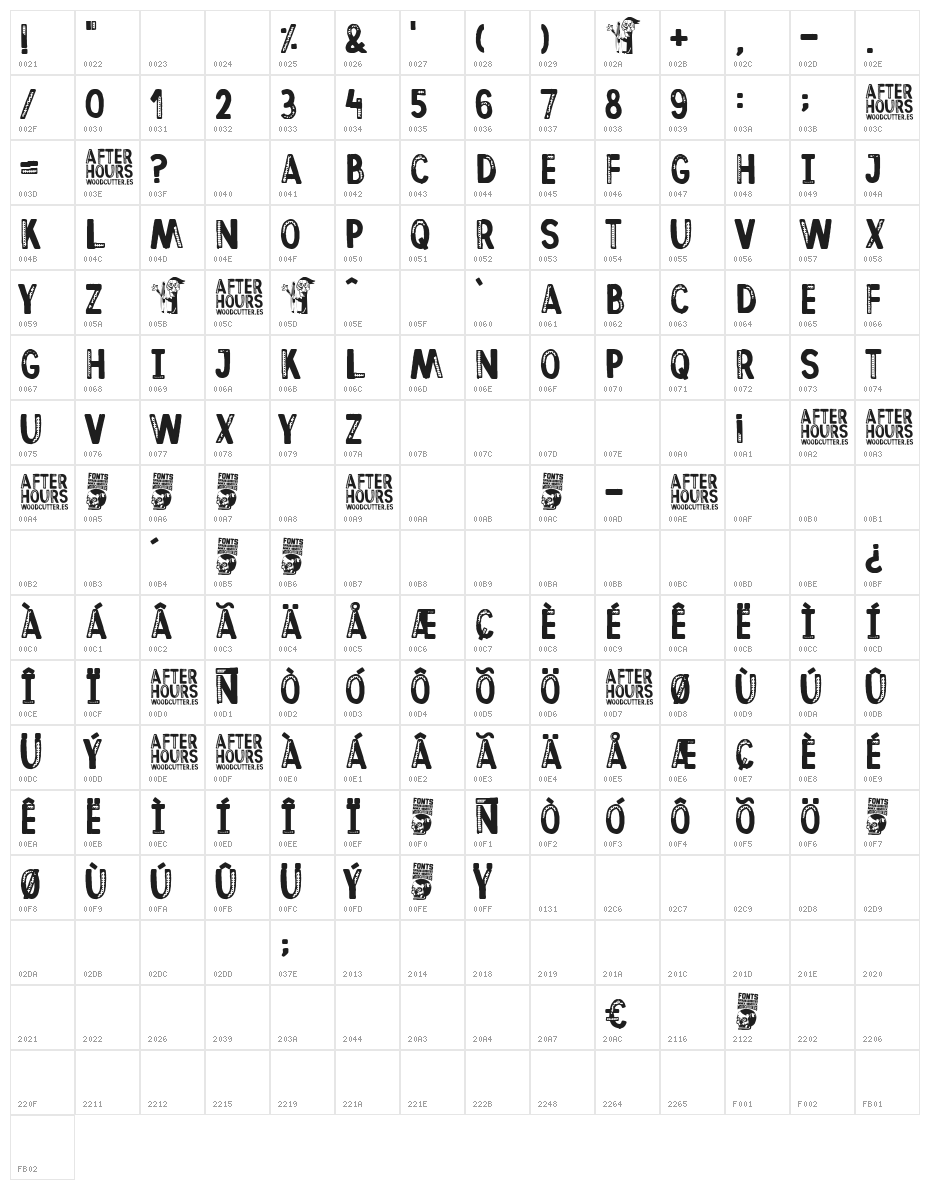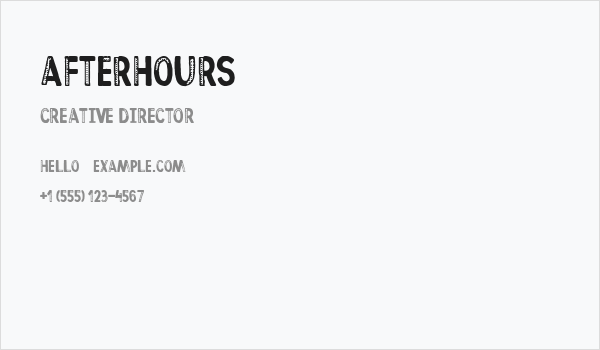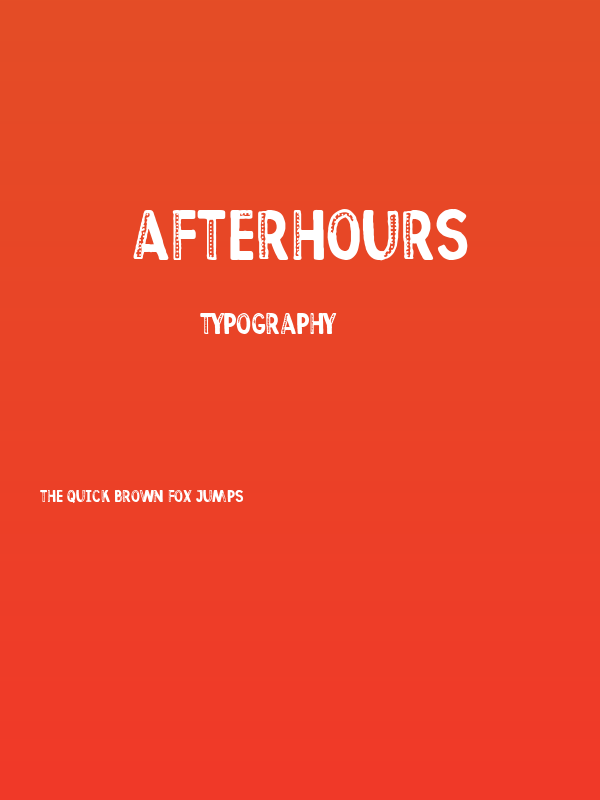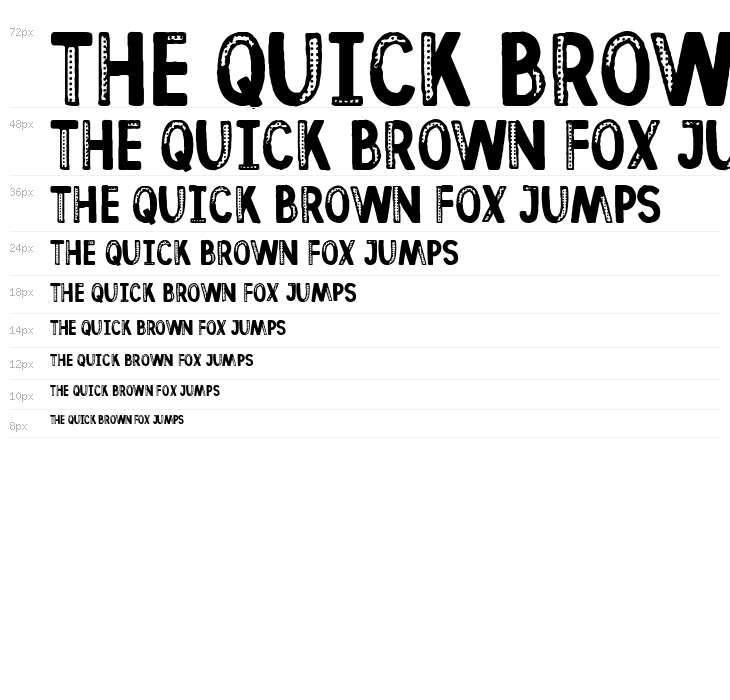
Afterhours Font
Afterhours Description
This font features a bold, playful style with a hand-drawn aesthetic. The letters are uppercase and have a slightly irregular, textured appearance, giving them a whimsical and informal feel. The characters are thick and substantial, with a consistent weight throughout. The numbers and special characters maintain this playful, bold style, making the font suitable for creative and casual designs. The texture within each character adds depth and interest, making it stand out in various applications.
Overall StylePlayful, Whimsical
Use CaseHeadlines, Posters, Creative projects
Proposed ProjectsIdeal for children's books, playful branding, posters, and creative projects.